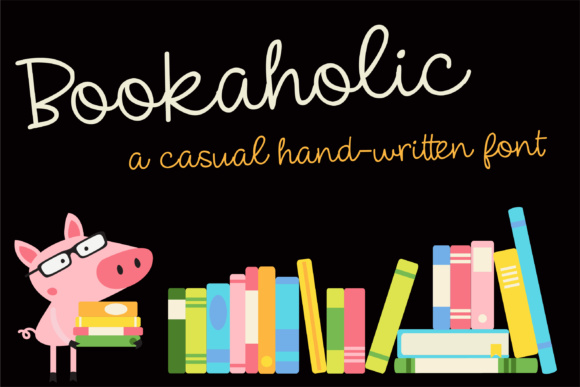
Embark on a literary adventure with ZP Bookaholic Font, a charming script family that exudes a delightful handwritten charm. Crafted by the renowned Illustration Ink, this font family is a captivating blend of whimsy, elegance, and authenticity.
ZP Bookaholic's graceful strokes mimic the natural flow of a pen, evoking a sense of intimacy and personal connection. Each letter dances across the page, exuding a casual yet sophisticated charm that is sure to capture the hearts of readers and writers alike.
Step into a world where stories come alive as this font family transforms your digital creations into captivating masterpieces. Whether you're crafting heartfelt letters, enchanting invitations, or captivating social media posts, ZP Bookaholic Font is your perfect companion.
With its playful personality and undeniable charm, this font family is the ideal choice for projects that demand a touch of whimsy and individuality. From personal blogs to creative presentations, ZP Bookaholic Font adds a spark of magic to every word it adorns.
Dive into the world of ZP Bookaholic Font and unlock a treasure trove of creative possibilities. Let your imagination soar as you create designs that resonate with warmth, authenticity, and a hint of playfulness.
Don't let your words be confined to the mundane; let them dance and delight with ZP Bookaholic Font, the script family that transforms the ordinary into the extraordinary. Embrace the magic of handwritten charm and watch your words come alive.